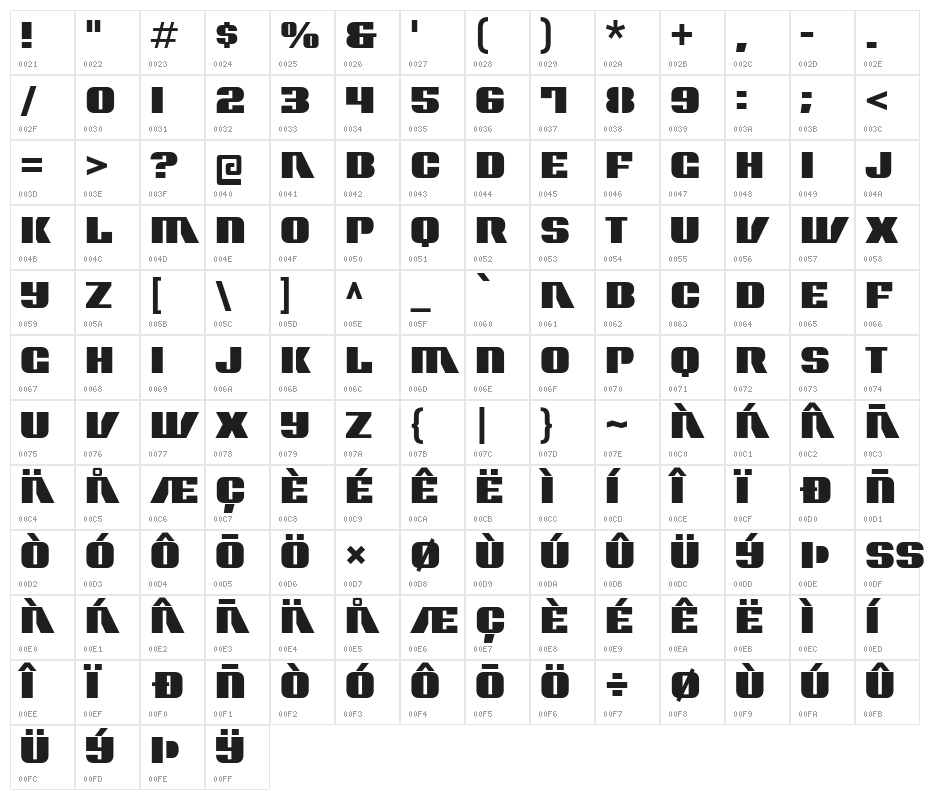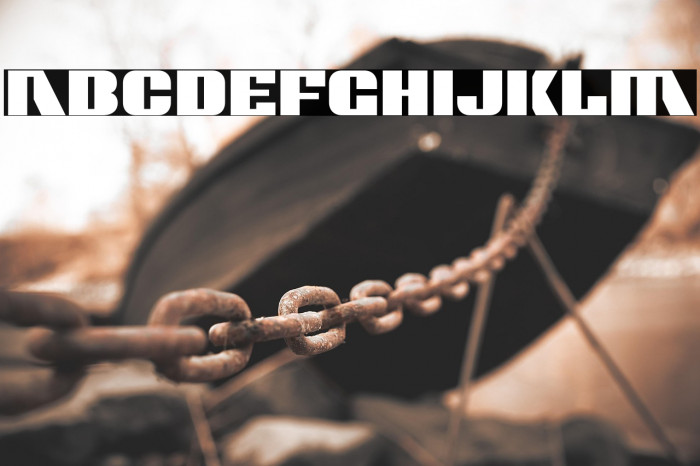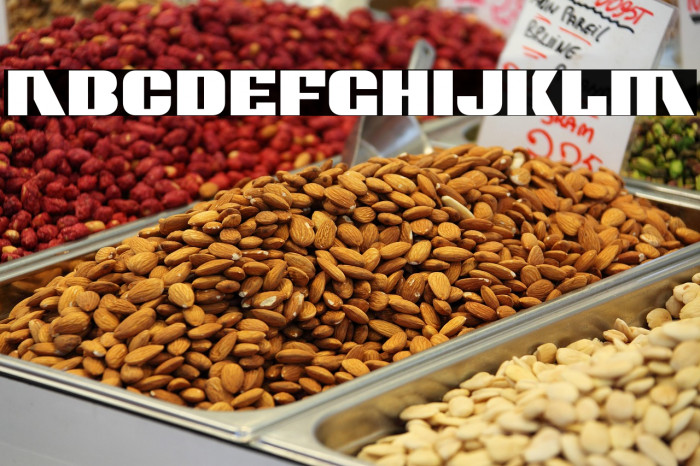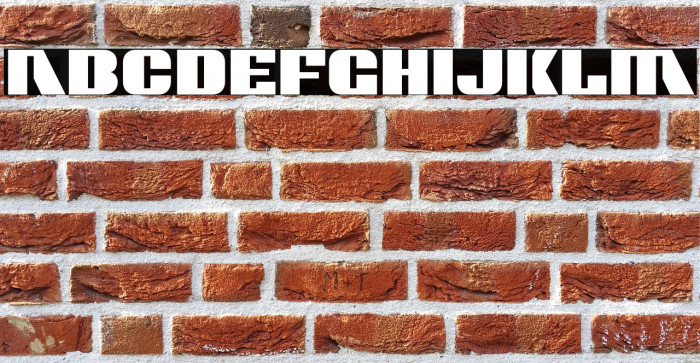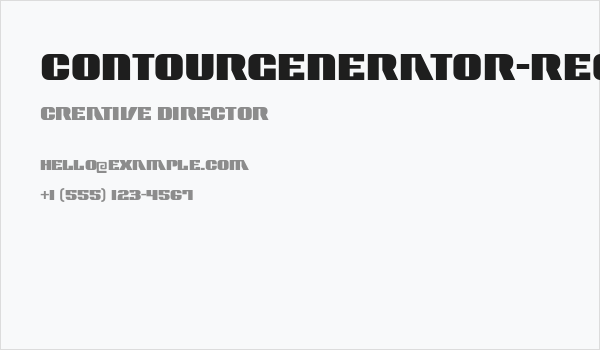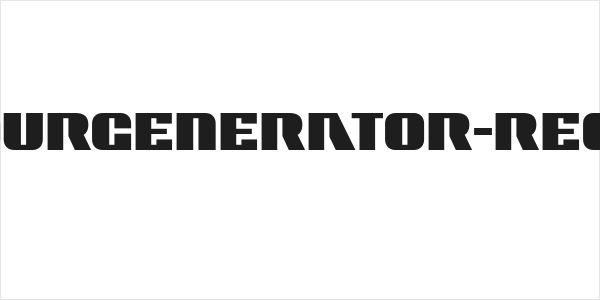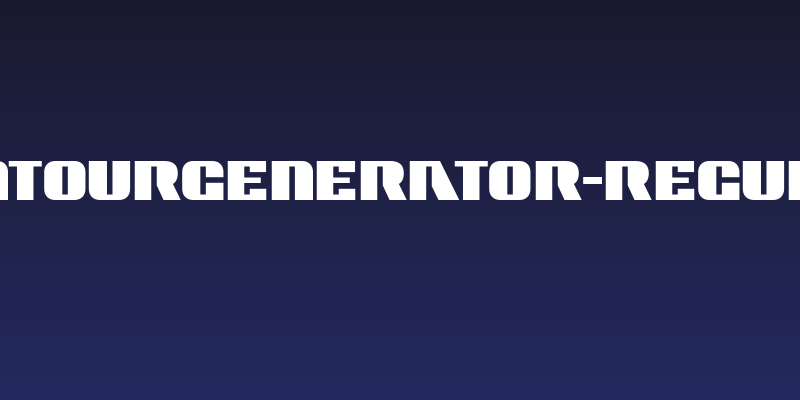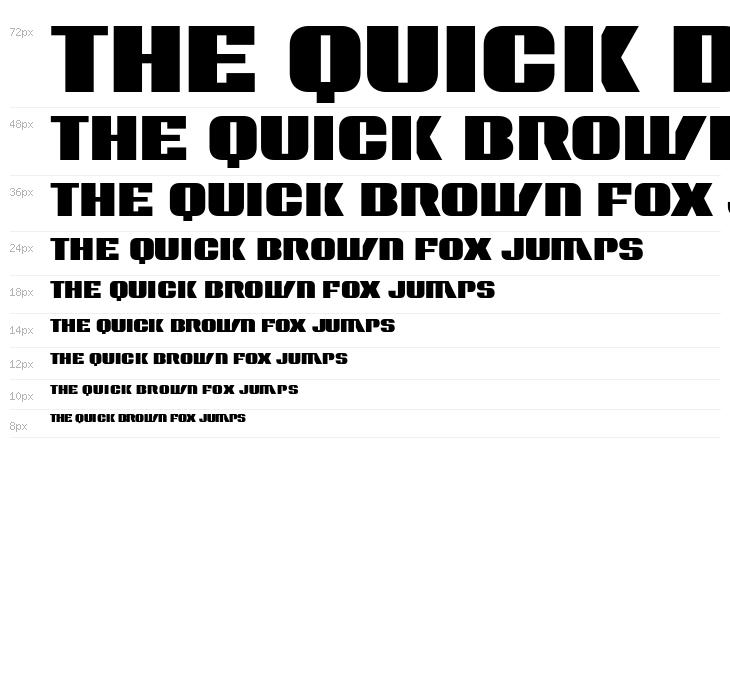
ContourGenerator-Regular Font
ContourGenerator-Regular Description
This font features a bold and geometric design with strong, angular lines and a modern aesthetic. The characters are wide and blocky, giving a sense of strength and stability. The uppercase letters exhibit a uniform height, while the lowercase letters maintain a consistent style, enhancing readability. Numbers and special characters are designed with the same boldness, ensuring a cohesive look across all text. The overall appearance is striking and impactful, making it suitable for attention-grabbing headlines and designs.
| Proposed Projects | Ideal for branding, posters, headlines, and any design requiring a bold statement. |